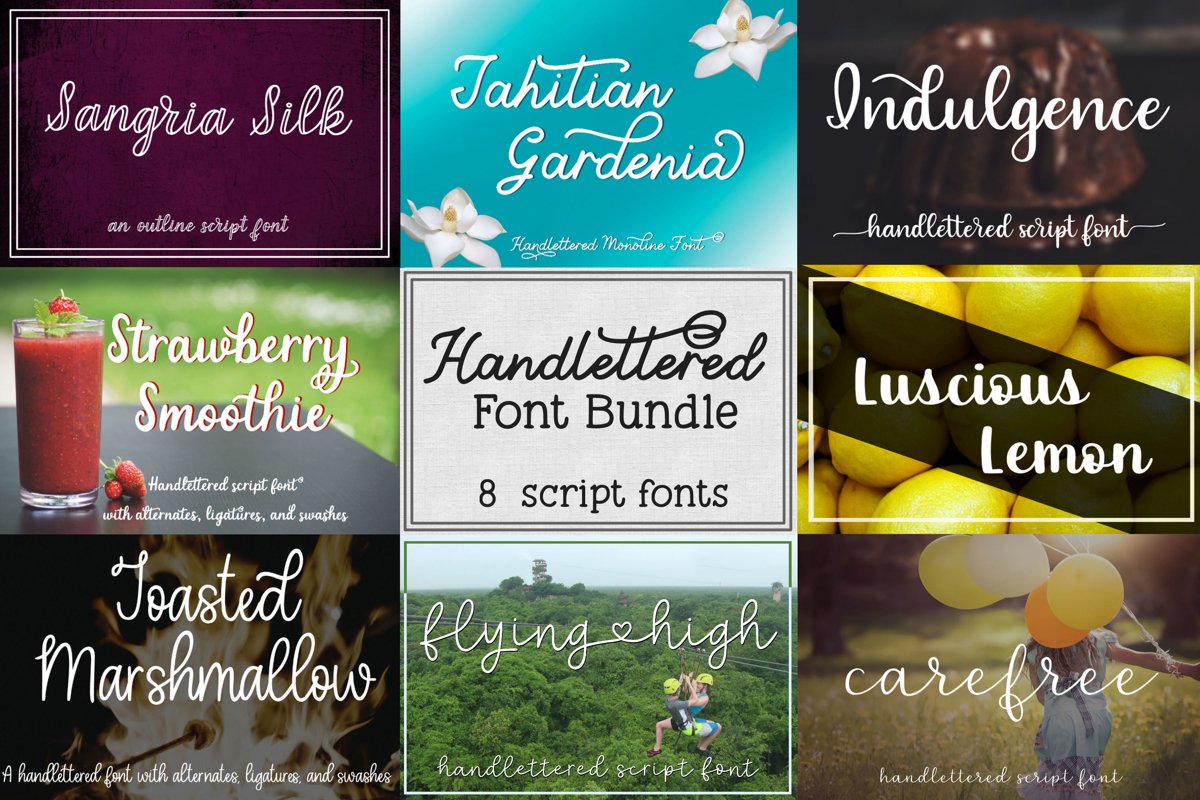
Handlettered Font Bundle - 8 Script Fonts
I bundled 8 of my handlettered script fonts together to create this Handlettered Font Bundle!!!   With this bundle, you will get the full version of each of the fonts listed below.  Please note: I do have a Big Font Bundle with 20 fonts (regular and script) which includes 6 of the fonts below plus 14 others. There is a link at the bottom of this description you'd like to check it out.
Indulgence - https://fontbundles.net/stacysdigitaldesigns/194754-indulgence-a-handlettered-script-font
Flying High - https://fontbundles.net/stacysdigitaldesigns/347730-flying-high-a-handlettered-script-font
Luscious Lemon - https://fontbundles.net/stacysdigitaldesigns/374628-luscious-lemon-a-thick-script-font
Strawberry Smoothie - https://fontbundles.net/stacysdigitaldesigns/276427-strawberry-smoothie-a-handlettered-script-font
Toasted Marshmallow - https://fontbundles.net/stacysdigitaldesigns/230985-toasted-marshmallow-a-handlettered-script-font
Carefree  - https://fontbundles.net/stacysdigitaldesigns/251715-carefree-a-handlettered-script-font
Tahitian Gardenia - https://fontbundles.net/stacysdigitaldesigns/661434-tahitian-gardenia-handlettered-monoline-font
Sangria Silk - https://fontbundles.net/stacysdigitaldesigns/441319-sangria-silk-an-outline-script-font